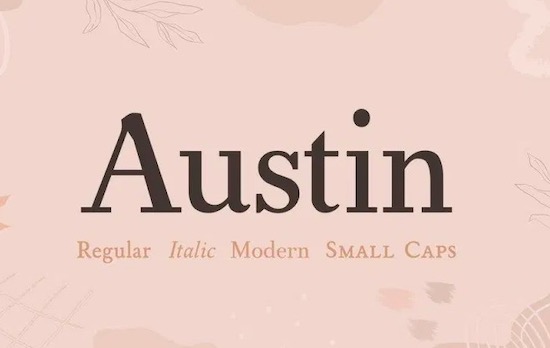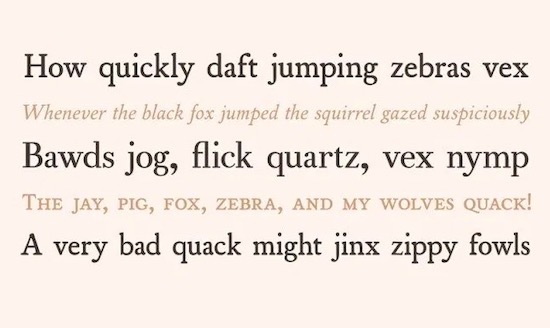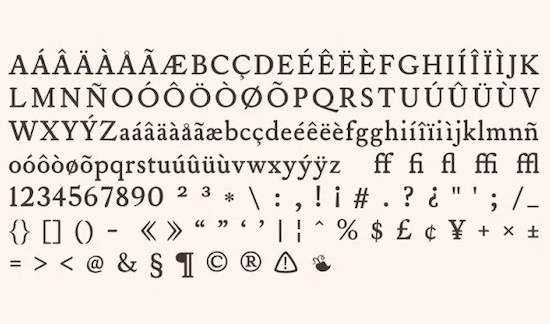
Austin is a fancy modern popular Serif font, and it is carefully designed to be combined with various gorgeous fonts and can be used to making your branding design project. This font includes lowercase, uppercase, and multi-language support.
Austin can make your design typography more beautiful full and cute. And this font was designed in the learning process in Type School. Good luck!
It is a popular serif font that comes in 5 unique weights are: italic, regular, caps, small, and modern. And Austin font can work well in any graphic design project such as product packaging, photography, craft products, wedding invitations, posters, book covers, t-shirts, and much more.
Austin Serif Font
- Style: Slab Serif, Serif
- Type: Modern, Regular, Caps, Small, Italic
Font Family
- Austin Regular
- Austin Textured
- Austin Italic
- Austin modern
- Austin caps
Answer: Austin is a multipurpose modern serif typeface font with many great styles (Austin Regular and Austin Italic, …).